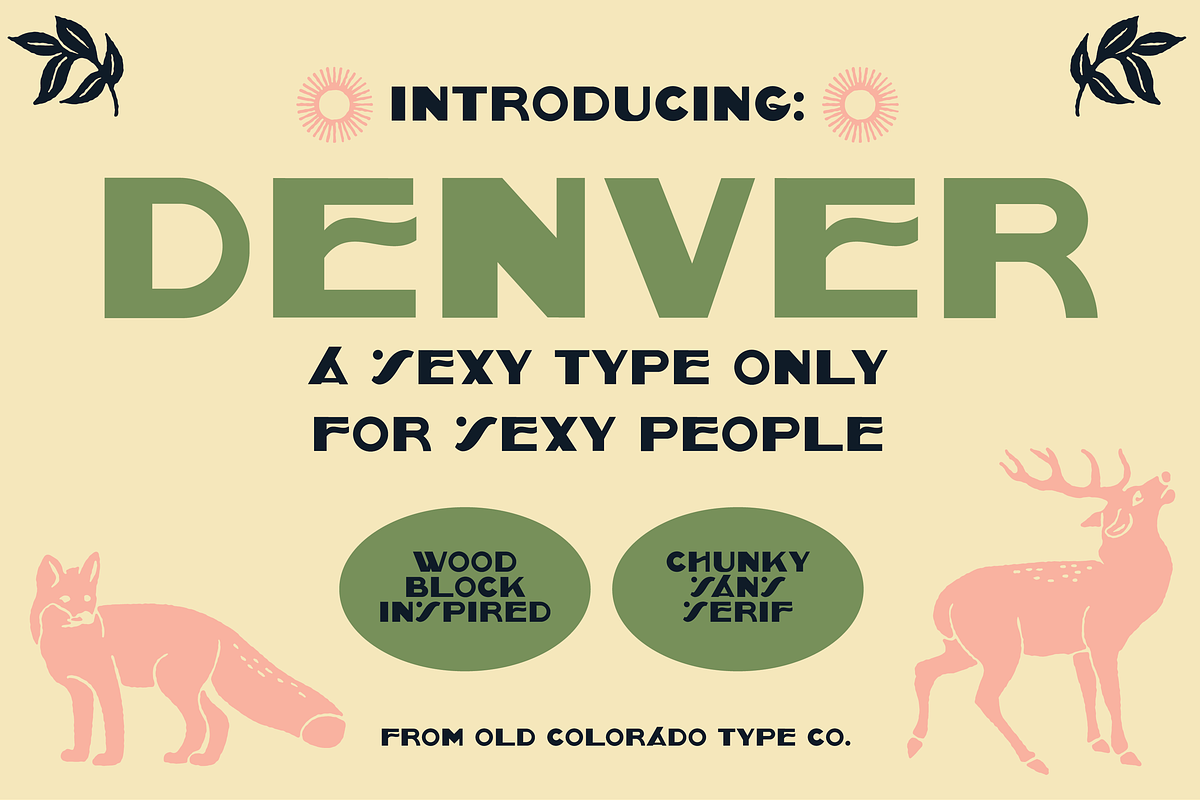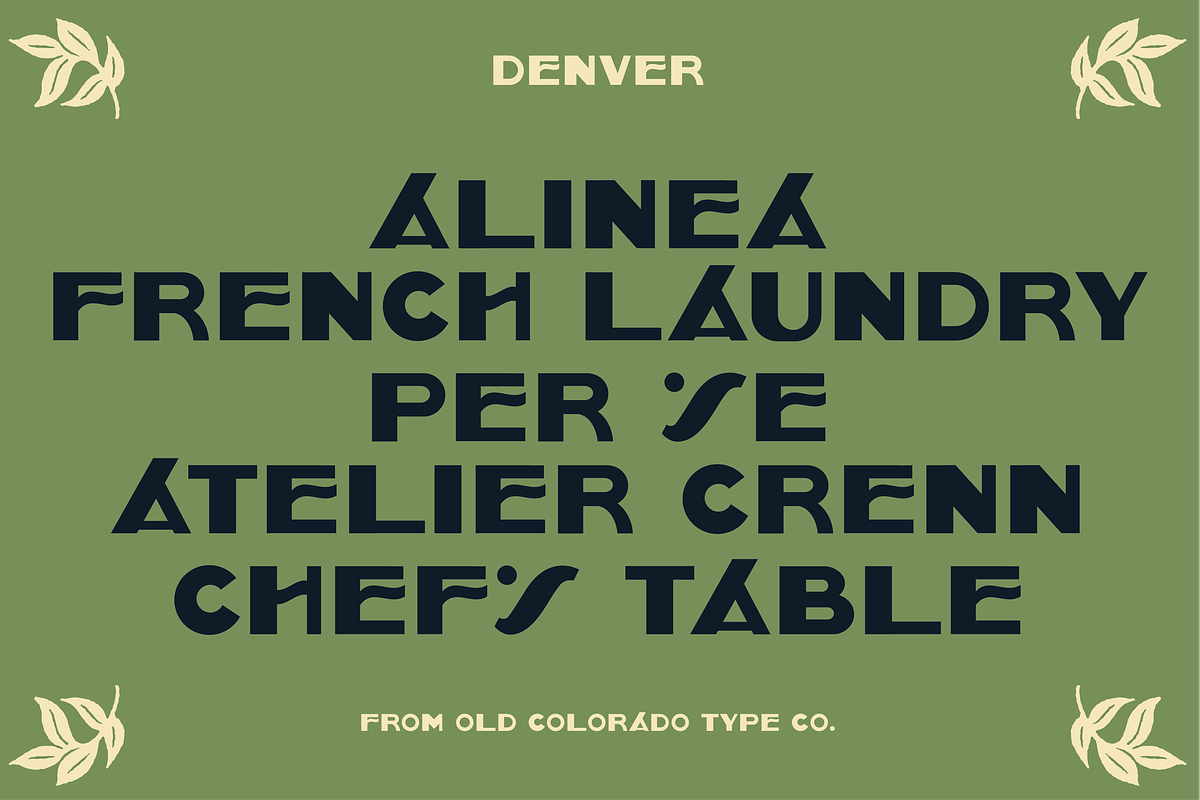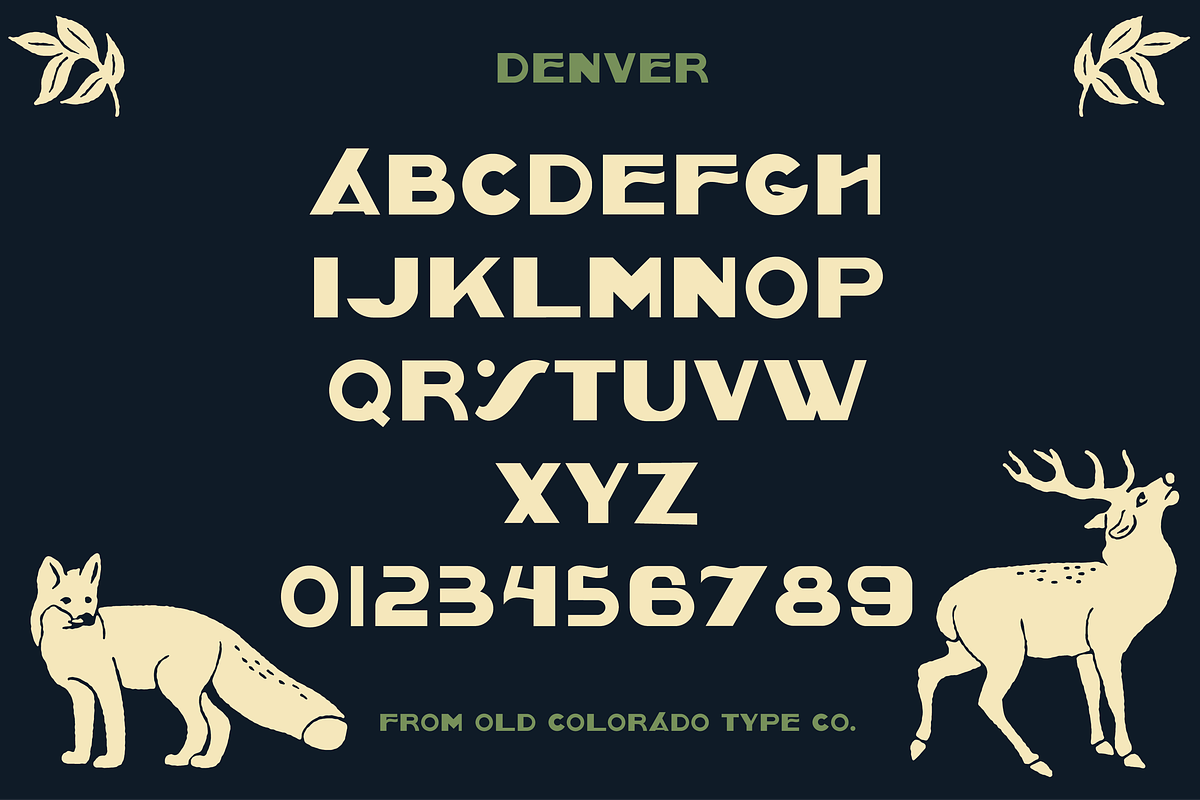
DENVER by Old Colorado Type Co.
A sexy, modern sans serif font with unexpected weights. Inspired by turn of the century woodblock letters. Perfect for a classy and fun project.